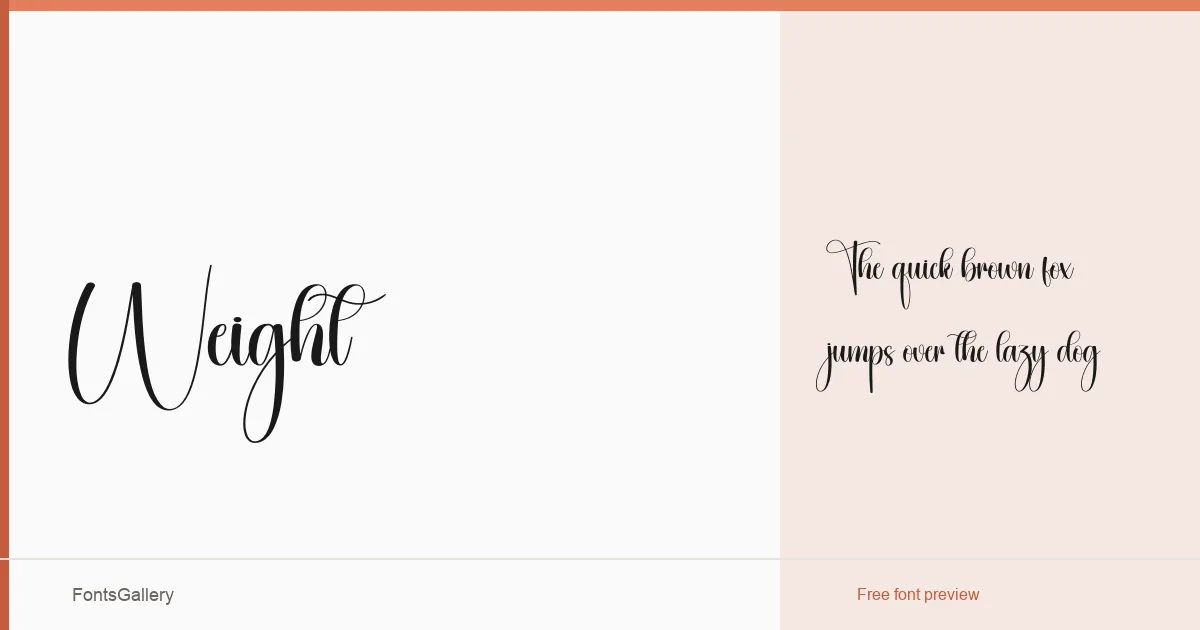
Weight is an elegant script typeface crafted by Scratchones Creative, designed to evoke a sense of luxury, romance, and timeless sophistication. Its refined character makes it an ideal choice for projects that demand a classic yet distinctive typographic presence. Whether used in intimate personal projects or polished creative work, Weight carries an air of grace and refinement.
Weight features flowing script letterforms that embody an elegant and romantic sensibility, drawing on the traditions of classic calligraphic styles. The typeface balances fluid strokes with a luxurious weight and rhythm, lending each character a sense of intentional beauty and poise. Its classic aesthetic ensures versatility across a wide range of refined design contexts.
Weight is perfectly suited for logos, wedding stationery, invitation cards, greeting cards, and branding projects where a touch of romance and luxury is desired. Its expressive script style pairs exceptionally well with the clean, modern lines of Helvetica or the complementary elegance of Aresink, creating harmonious typographic combinations that balance personality with readability.